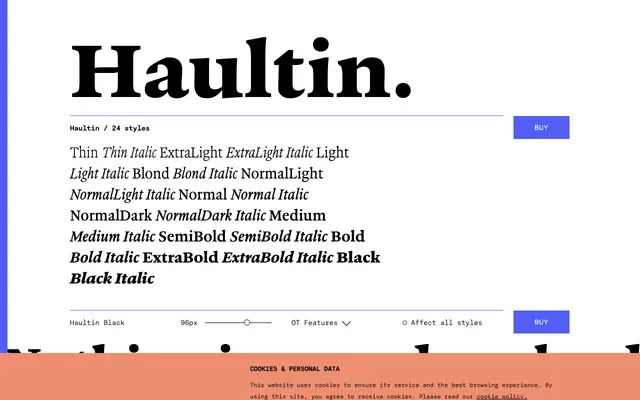
Haultin
A 24-style humanist sans from TYPE BY spanning twelve weights, each with a matching italic and a full set of OpenType features for text work.
Twelve weights run from Thin to Black, with each accompanied by an italic, giving 24 styles in total. OpenType features include small capitals, oldstyle and tabular figures, fractions, superscript, scientific inferiors and a slashed zero, making it well-equipped for demanding editorial and typographic work. The naming of intermediate weights as Blond, NormalLight and NormalDark adds fine-grained control in the middle of the range where most text setting sits.
The range of weights, italic companions and naming conventions suggest a humanist sans with broad text utility; the specimen copy referencing sixteenth-century punchcutting reinforces a connection to historical type culture, consistent with humanist sans sensibilities.